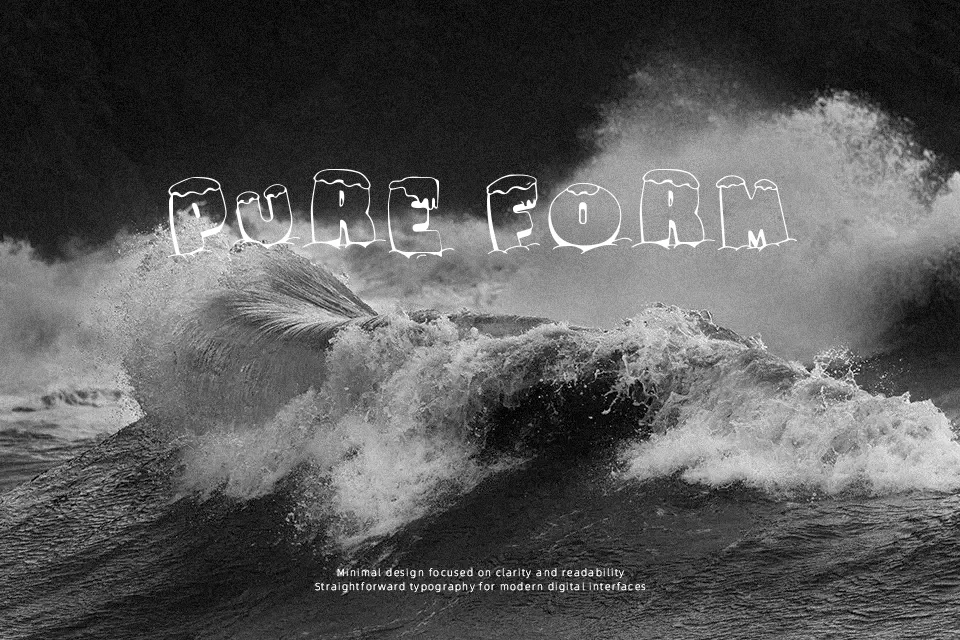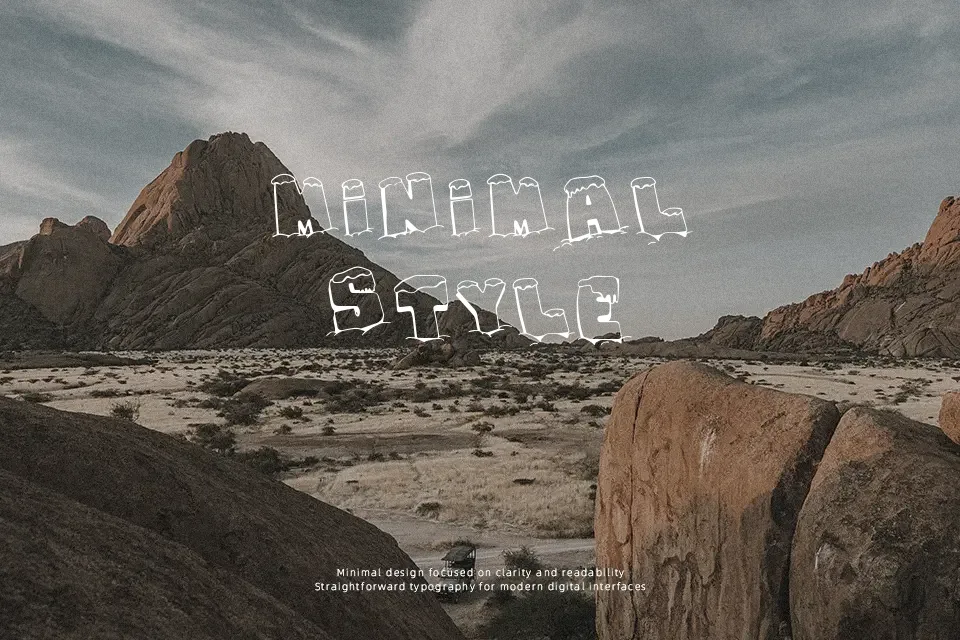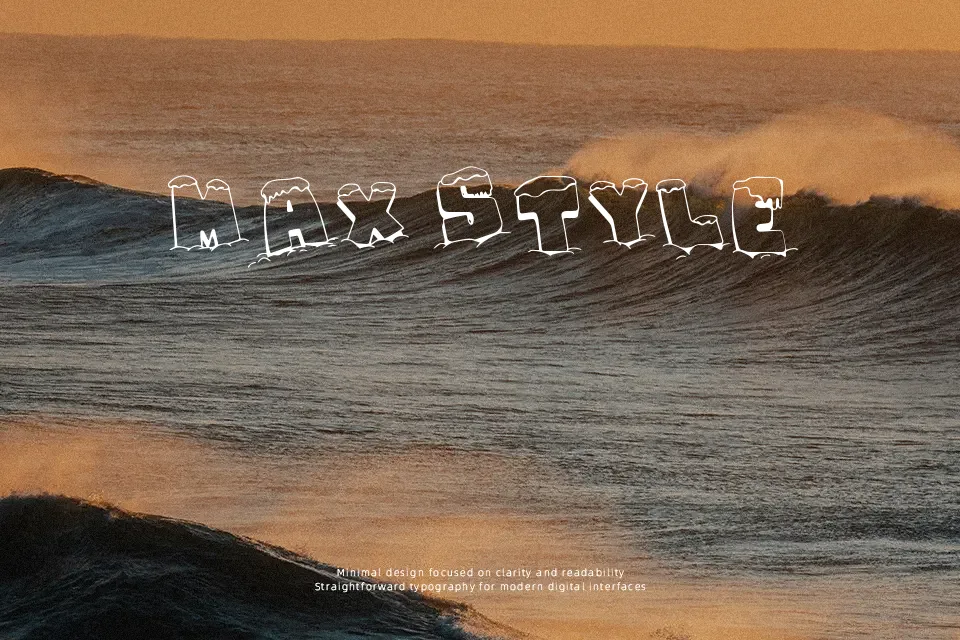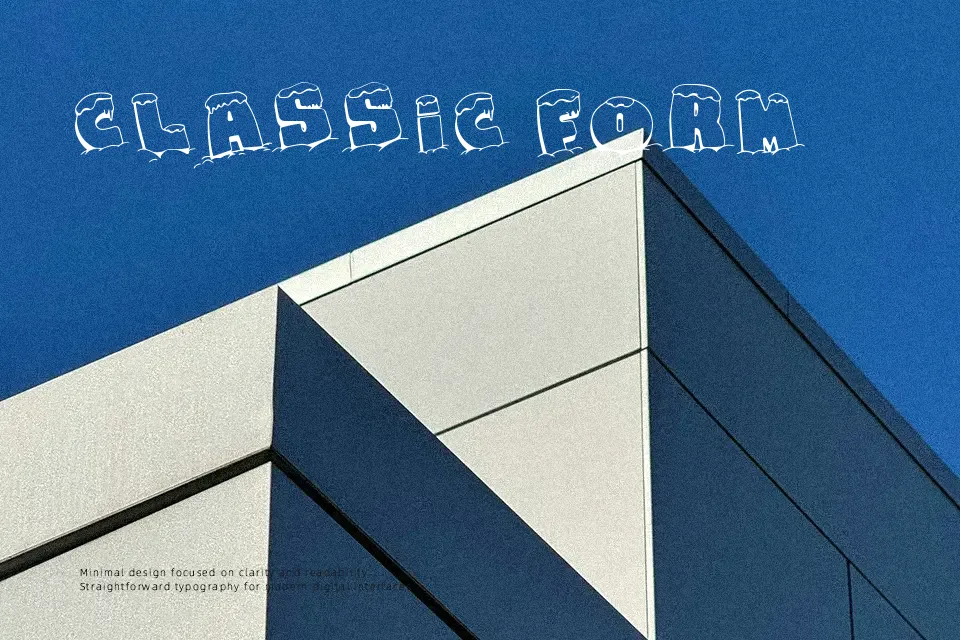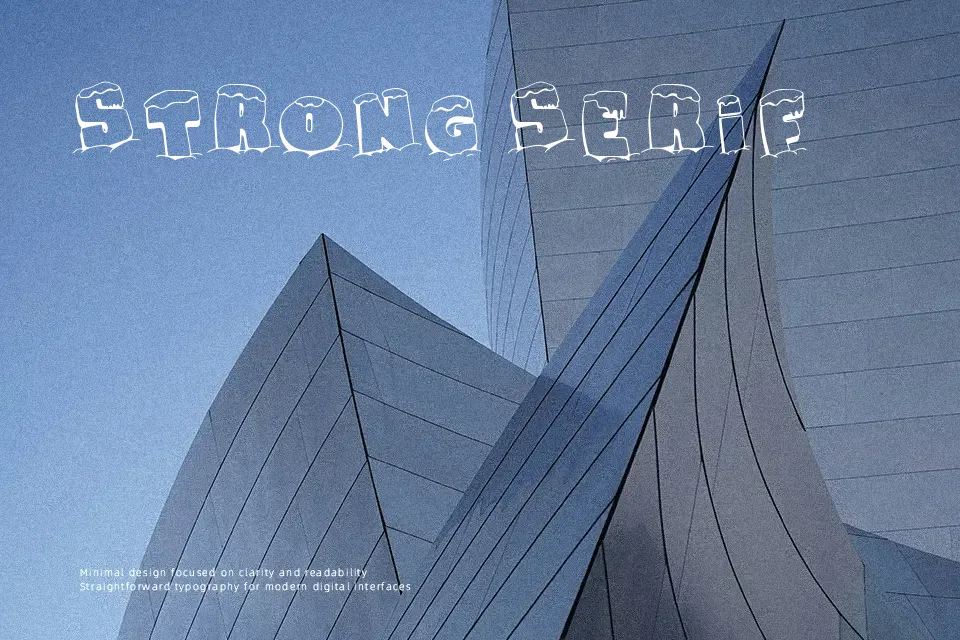
Snaps Taste Christmas Font
Snaps Taste Christmas Font uses heavy, block-like letterforms topped with uneven snow details that create a clear winter display effect. The strokes are thick with low contrast, while the broad proportions and generally open internal spaces keep short words recognizable at headline sizes. Its decorative treatment gives uppercase text the strongest visual rhythm, and the numeral forms suit seasonal prices and dated event artwork. The font works best when allowed room in a simple layout; the snow edges remain easy to notice in large titles but can blur the letter shapes in small text or long passages.
Best For: Christmas posters,winter sale banners,holiday packaging,seasonal social media graphics
Perfect for christmas, headline, and packaging, with a bold and decorative style.